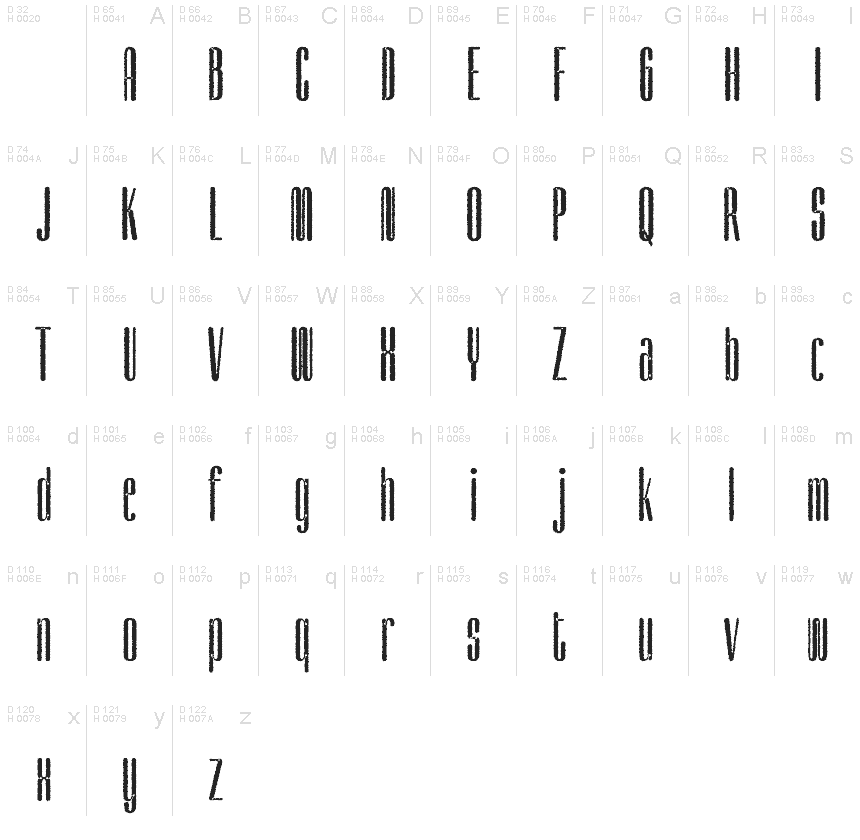
Palaside Rough Demo Regular
Palaside Rough font developed by Craft Supply Co., is a condensed font focused on display applications. The weight of the light characters combine with the eroded style for unique texts. Add to that aged and distressed overall appearance which gives a textured and industrial feel.